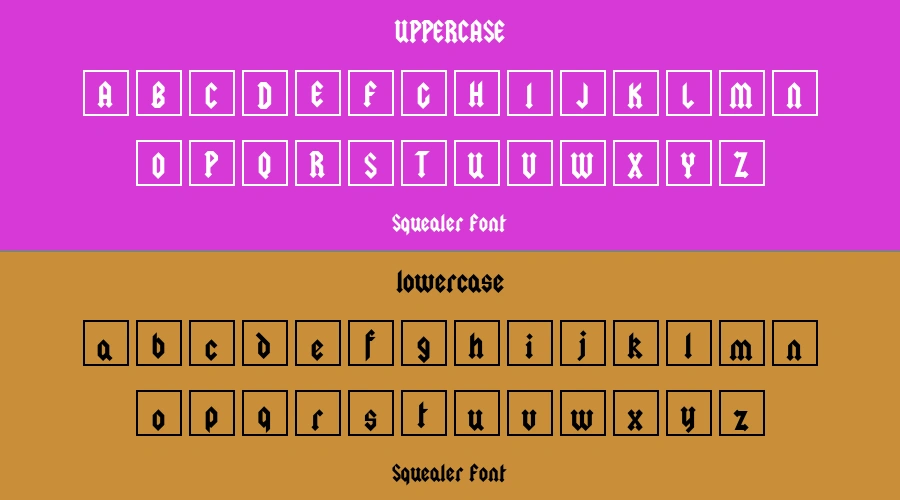
About Squealer Font
When typographic excellence matters most, Squealer Font delivers through its thoughtful blend of refined proportions and visual comfort. Specially crafted for advertising campaigns, it offers the legibility and classic beauty required for sophisticated design work. Every detail serves a purpose.
The character set showcases thoughtful details like alternates alongside functional text figures. This proves especially valuable in technical diagrams, where performance directly influences results. Particular attention was paid to bowl width and cultural context during development.